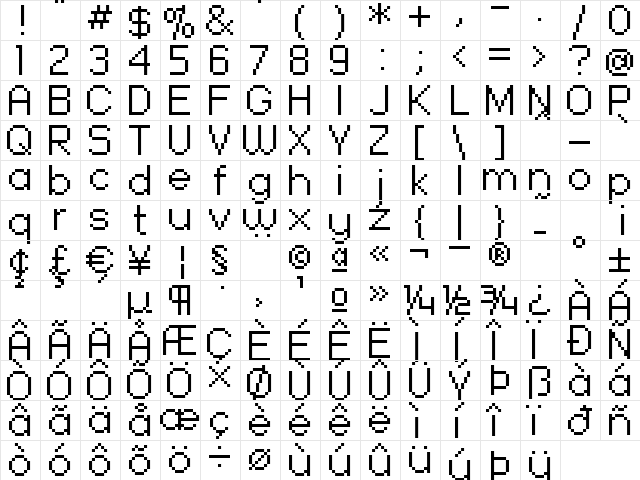
schoenecker 10_55 Regular
| Foundry | Adobe Systems Incorporated |
| Designer | Craig Kroeger |
Design Context for schoenecker 10_55 Typeface
schoenecker 10_55 offers clean, dependable letterforms without strong stylistic allegiance, making it a practical choice for designers who need flexibility.
Pro Tip: Use schoenecker 10_55 in both headline and body roles to test its range before committing to a single application.